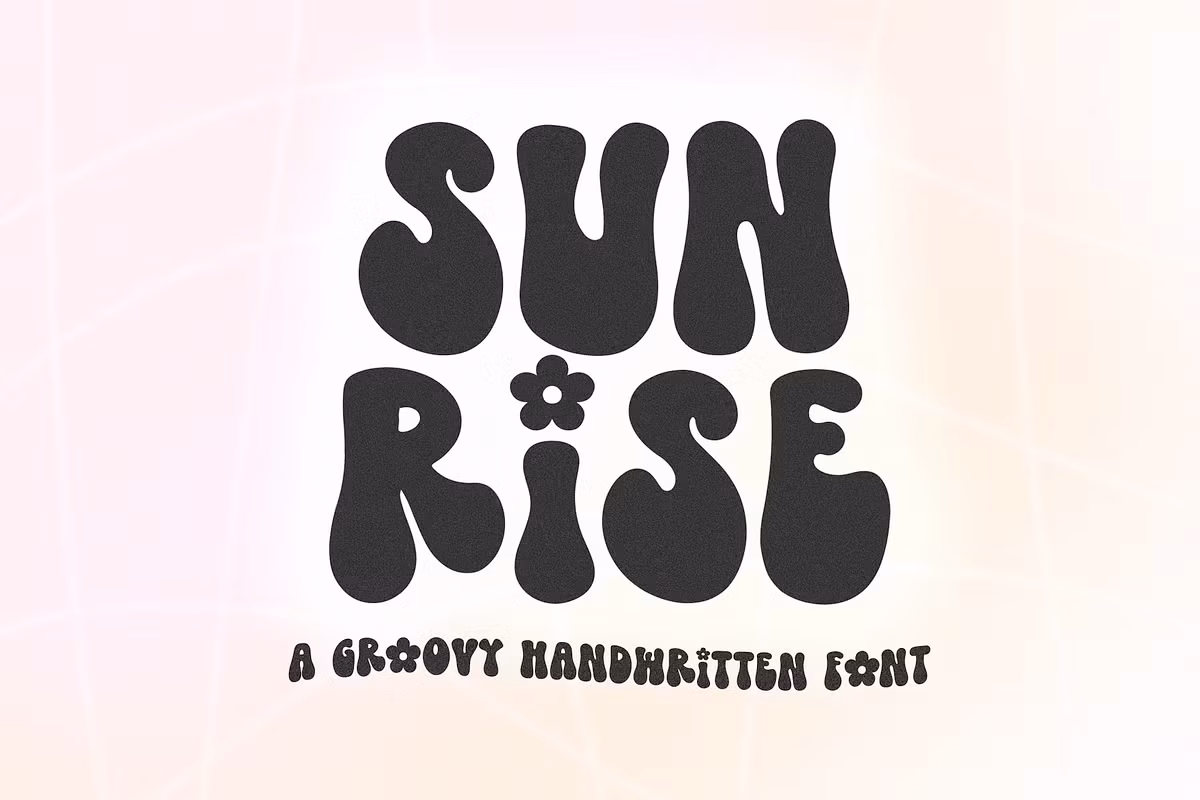
Sunrise | Groovy Retro Font Free Download
Sunrise Groovy Retro Font Free Download
Sunrise Groovy Retro Font Free Download is a bold and vibrant typeface inspired by the funky vibes of the ’60s and ’70s. With its chunky curves, psychedelic flair, and fun-loving attitude, this font is perfect for retro posters, vintage branding, album covers, social media content, and anything that needs a splash of nostalgic personality.
Designed to stand out, Sunrise Groovy Retro Font Free Download brings energy and movement to your typography. It’s great for creating eye-catching headlines, playful logos, and throwback-themed visuals that radiate positivity and creativity.